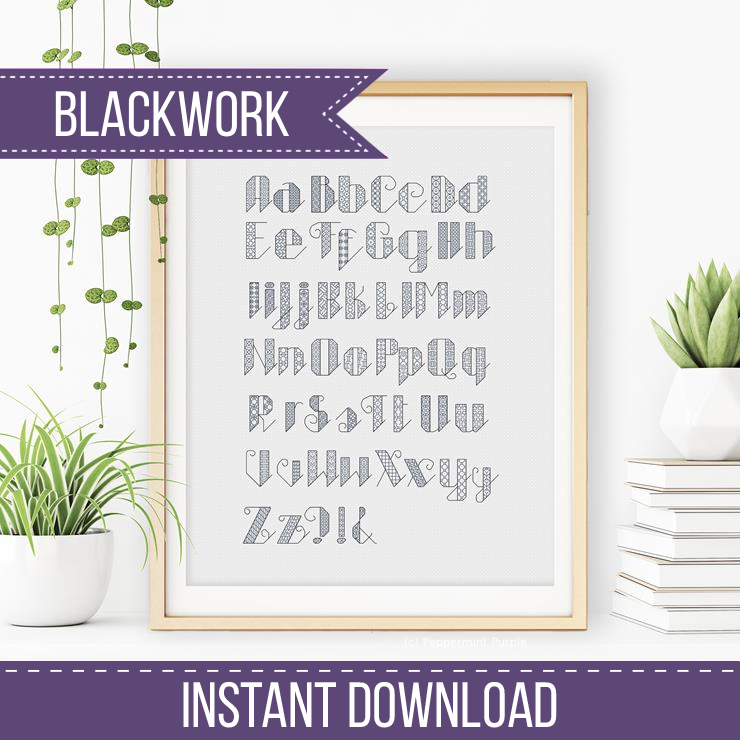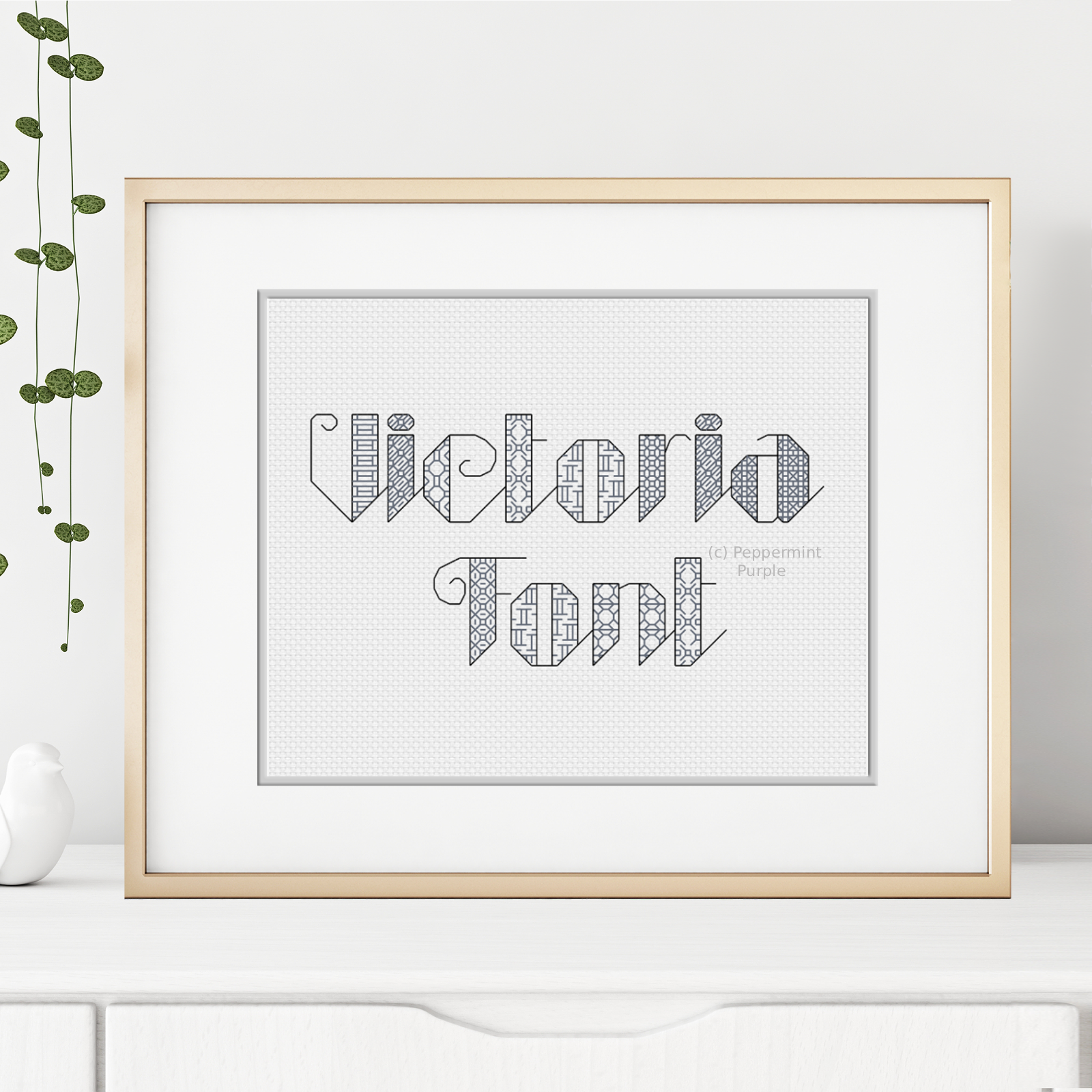
This is a lovely slanted style font filled with various Blackwork designs.
Please note there are no numbers with this font, but it does include a question mark, exclamation mark and ampersand.
Letters are mostly 21 stitches tall, with the largest (J ) being 27